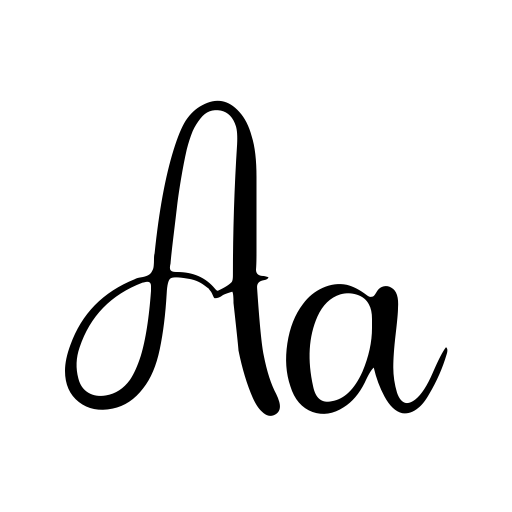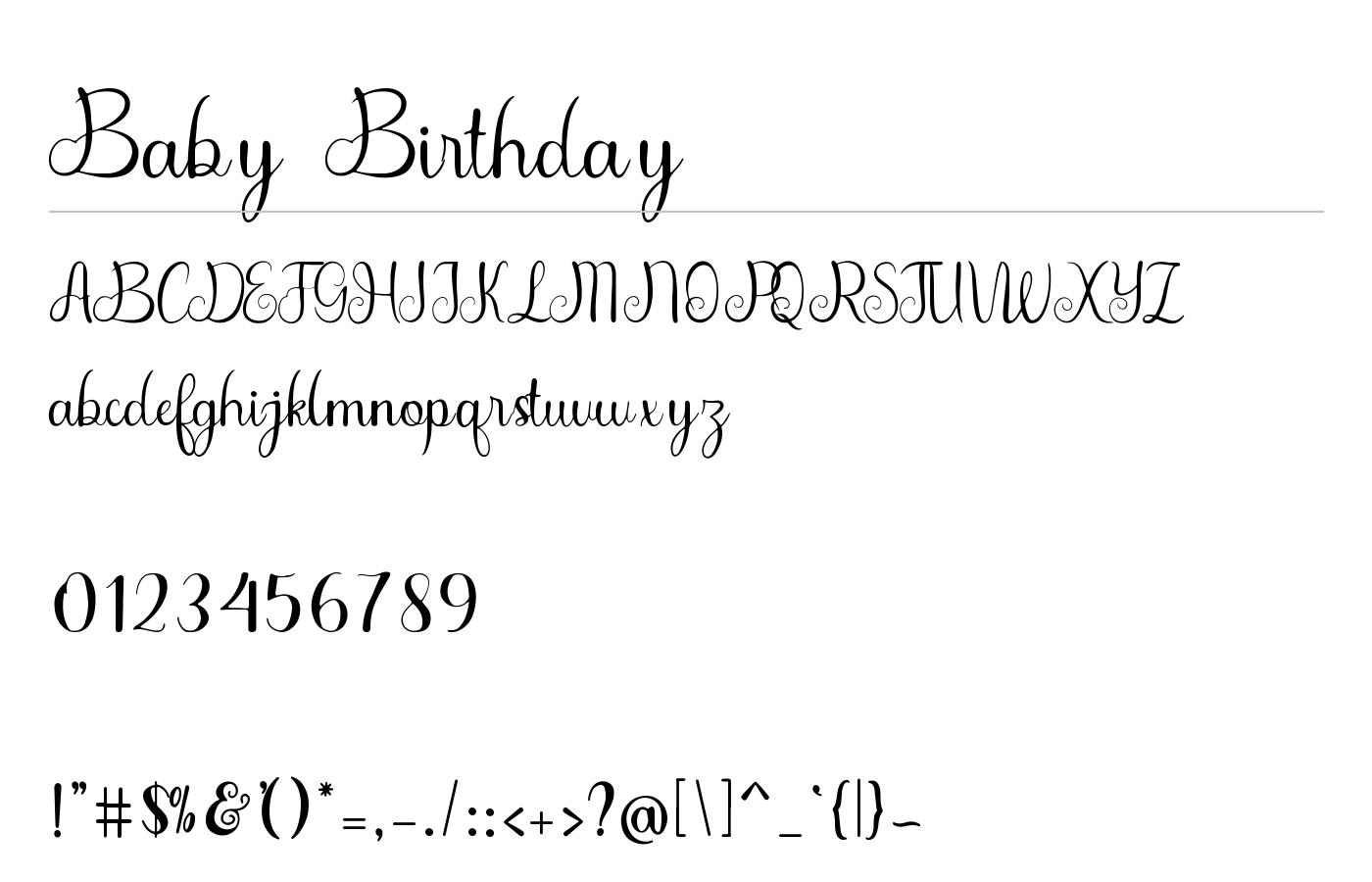
Baby Birthday is a delicate script font with an elegant, whimsical style characterized by thin, flowing strokes and charming curls that give it a playful yet refined personality. Its light weight and airy spacing make it perfect for designs celebrating special moments, especially in invitations, greeting cards, and children’s branding where a soft, joyful mood is desired. This font shines in headline or decorative use, adding a graceful, handwritten touch that feels both personal and festive.
Baby Birthday Font
About Baby Birthday Font
| Font family | Baby Birthday Font |
| Designer | Choirul Masruroh |